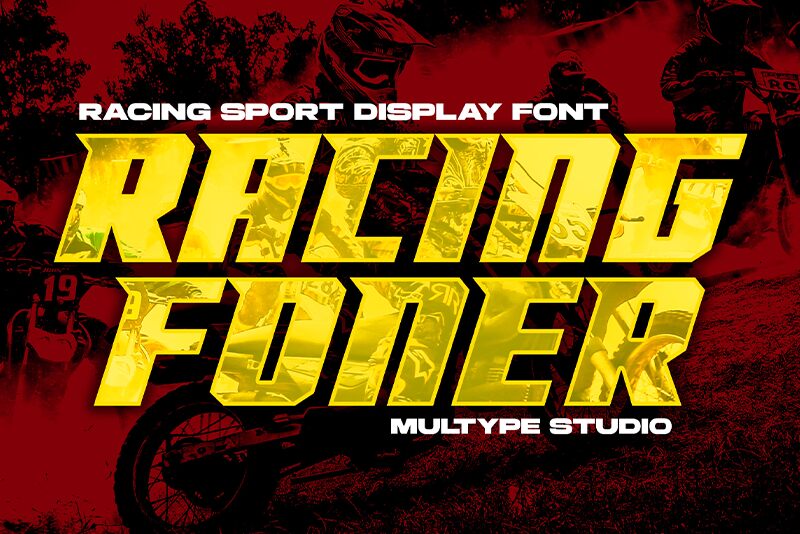
Racing Foner font by Multype Studio is a free futuristic display typeface whose exciting dynamism spins our imagination with its angular, aggressive, geometric letter design. Condensed and elongated for speed, the letters appear streamlined which makes the font perfect for racing-themed projects where modern aesthetic is important.
The typeface can be used to build stunning hero text on websites using big headings or for smaller headings in poster/brochure designs. Since strong personality isn't usually great for body text, ideally the font would be reserved for header sections of logos and branding materials more generally as well as product packaging and advertising media among others.